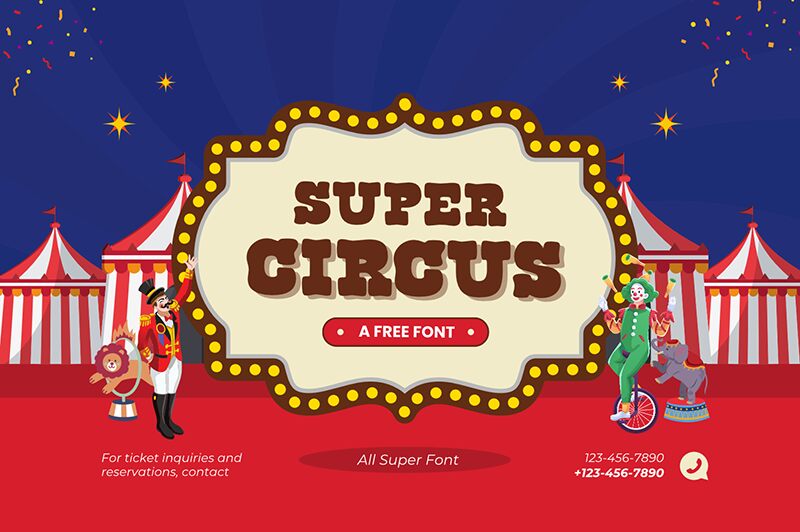
Super Circus
Super Circus font is a bold display font with decorative elements by fsuarez913. Inspired by circus posters and western movies from the 19th century, its forms are geometric, uniform, and have certain vintage flair that all together makes them look very attractive. The font is expanded in width which contributes to its remarkable presence.